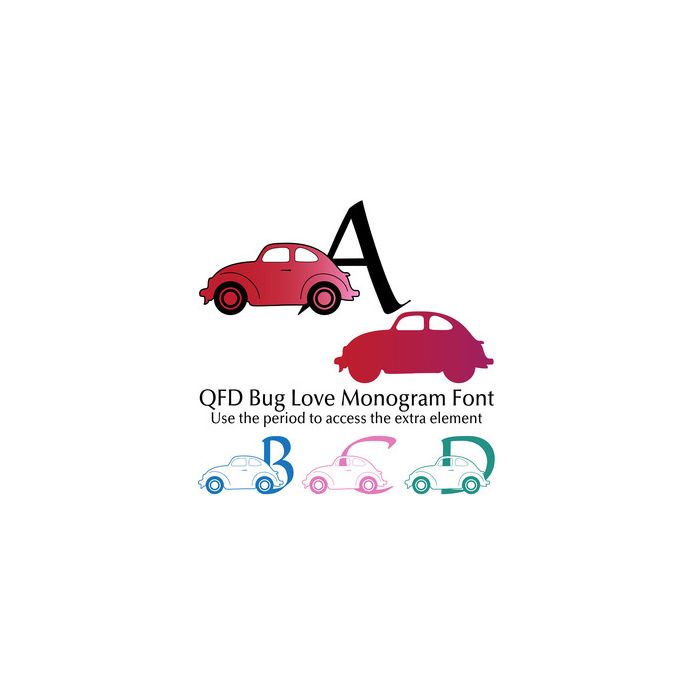
qfd bug love monogram font
Combine this fun font with the other QFD Monogram fonts! See our detailed monograms tutorial by clicking the Instructions button. Use the period to access the extra element. If you have any questions, please feel free to contact me!